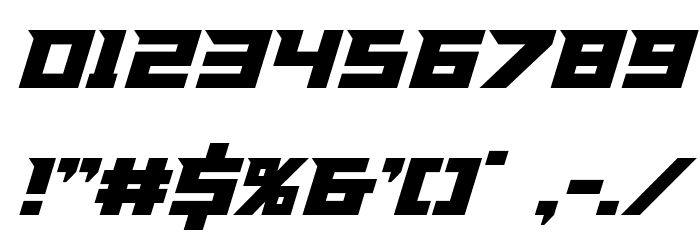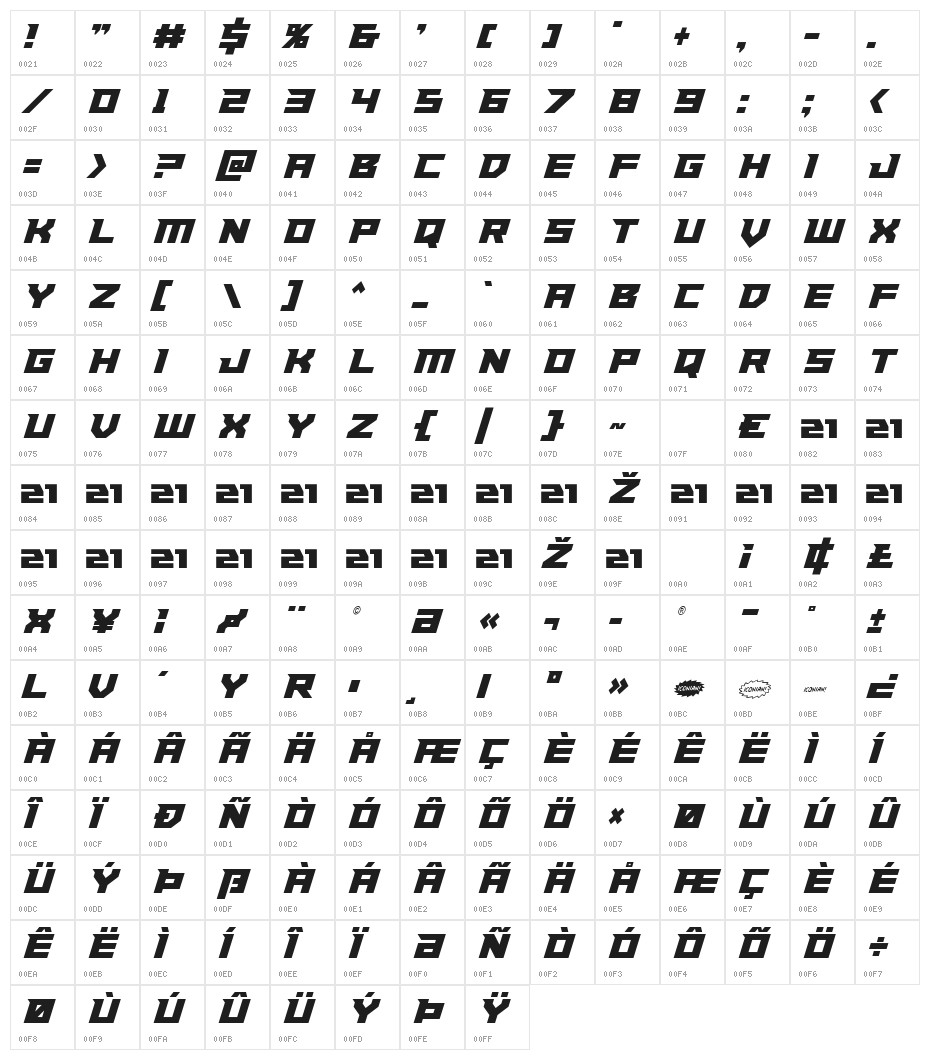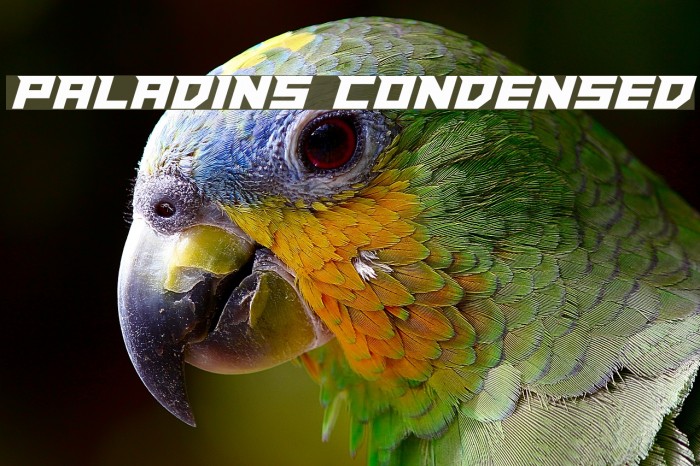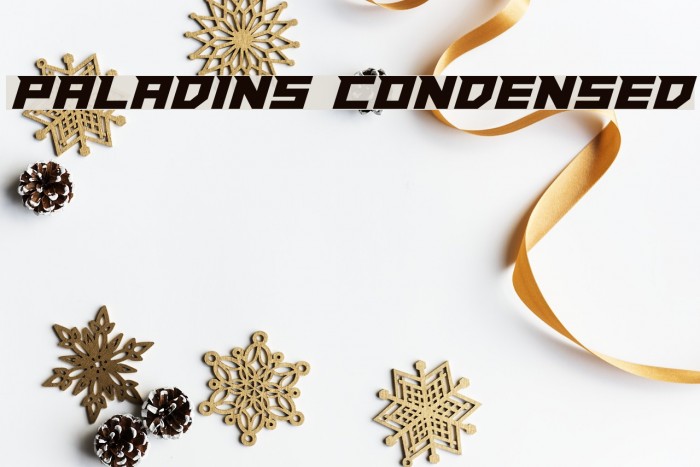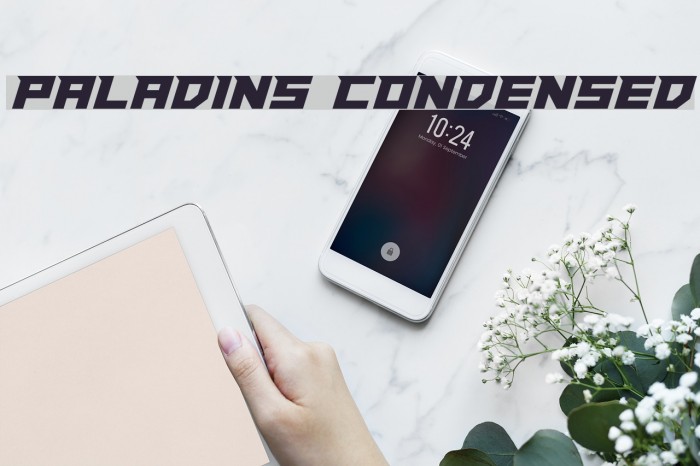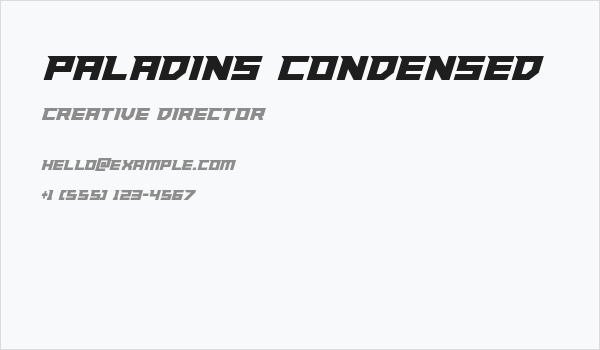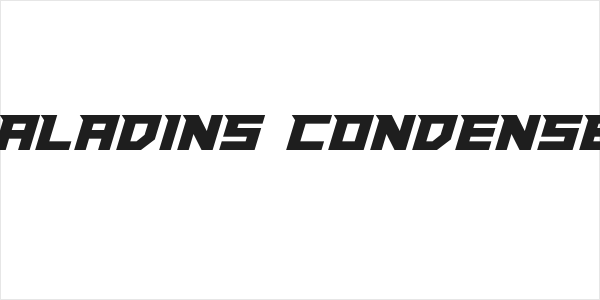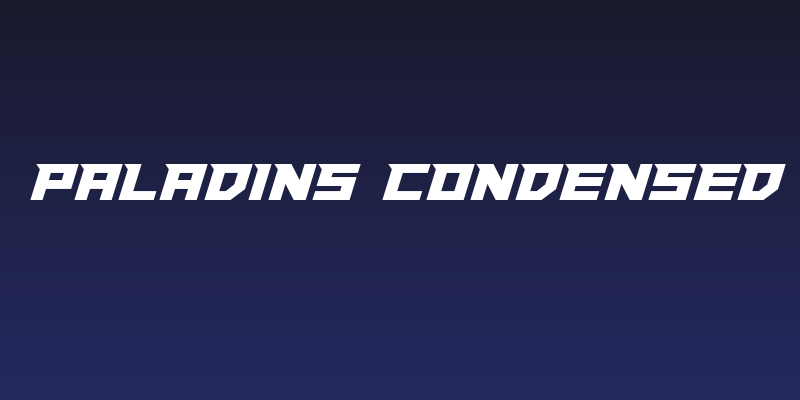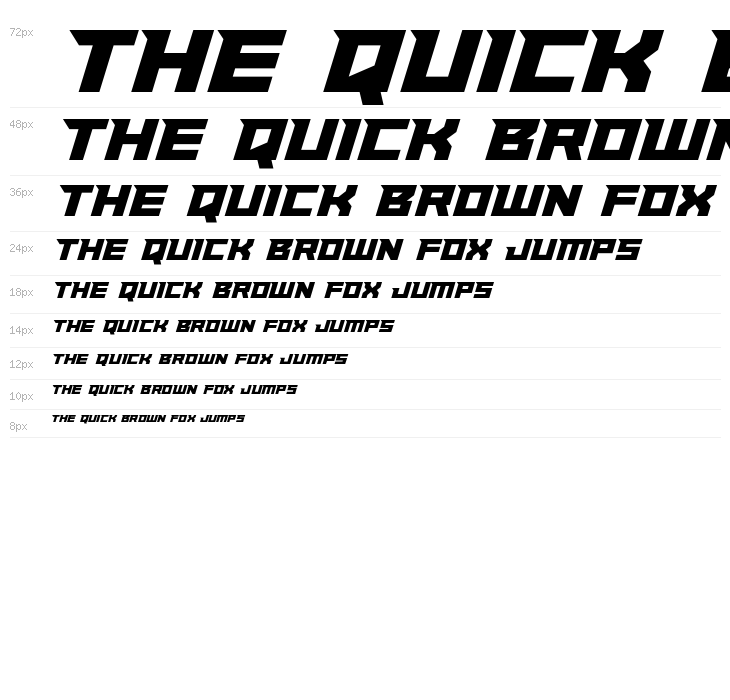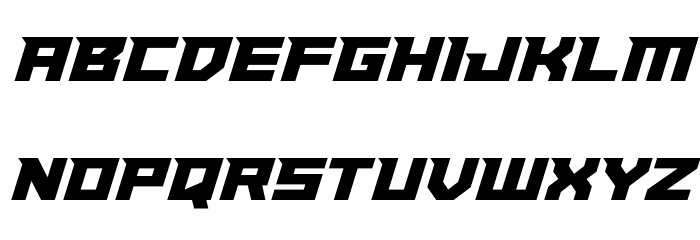
Paladins Condensed Font
Paladins Condensed Description
This font features a bold and dynamic design with sharp, angular lines that convey a sense of strength and modernity. The characters are condensed, giving them a compact appearance that enhances their boldness. The uppercase letters are particularly striking, with a futuristic style that makes them stand out. The numbers and special characters maintain the same angular aesthetic, ensuring consistency across all glyphs. This font's unique style is ideal for projects that require a strong visual impact.
| Proposed Projects | Ideal for video game titles, sports branding, posters, and any project requiring a strong, modern impact. |